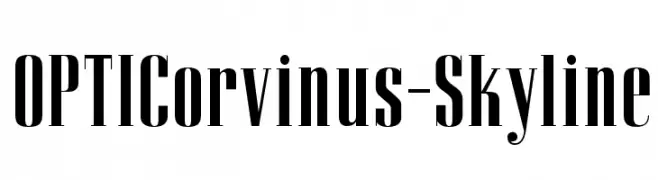
A modern serif typeface with high contrast and elegant, refined serifs.
A tall, narrow font with a modern and elegant style.
A bold, elegant font with tall, narrow characters and high contrast strokes.
A classic, high-contrast serif font with a semi-compressed style.
A tall, narrow font with a modern, elegant design and minimal contrast.
A bold, high-contrast serif typeface with tall, narrow letters.
A tall, elegant font with high contrast and elongated uppercase letters.
A bold, high-contrast serif font with elongated characters for dramatic impact.
A tall, narrow font with a modern and elegant design.
A tall, narrow, and modern font with a sleek and elegant appearance.